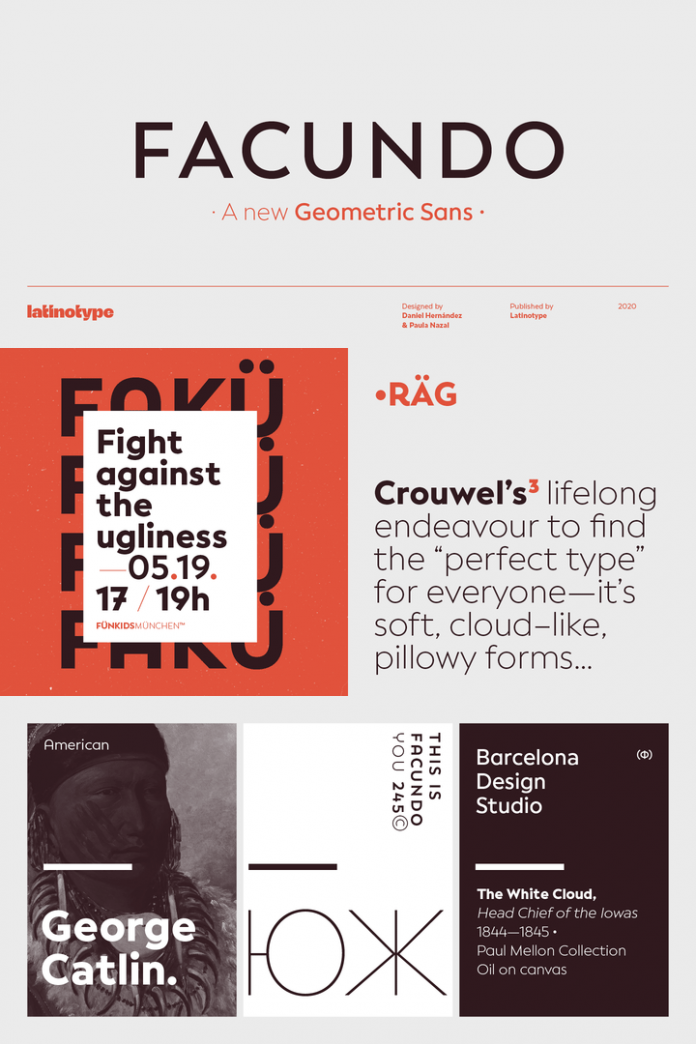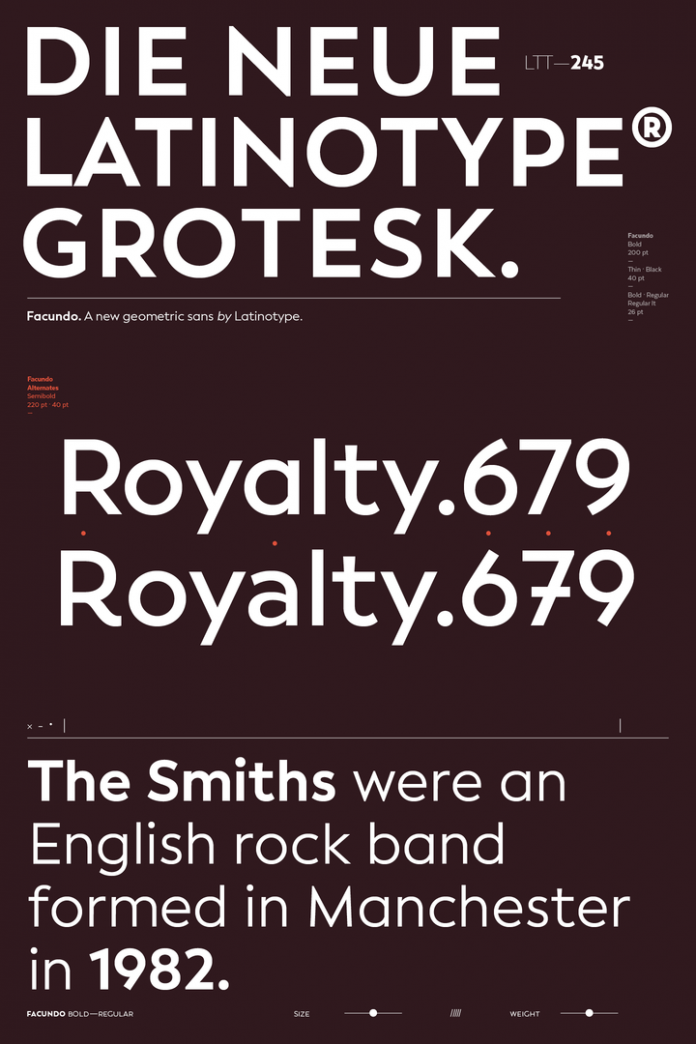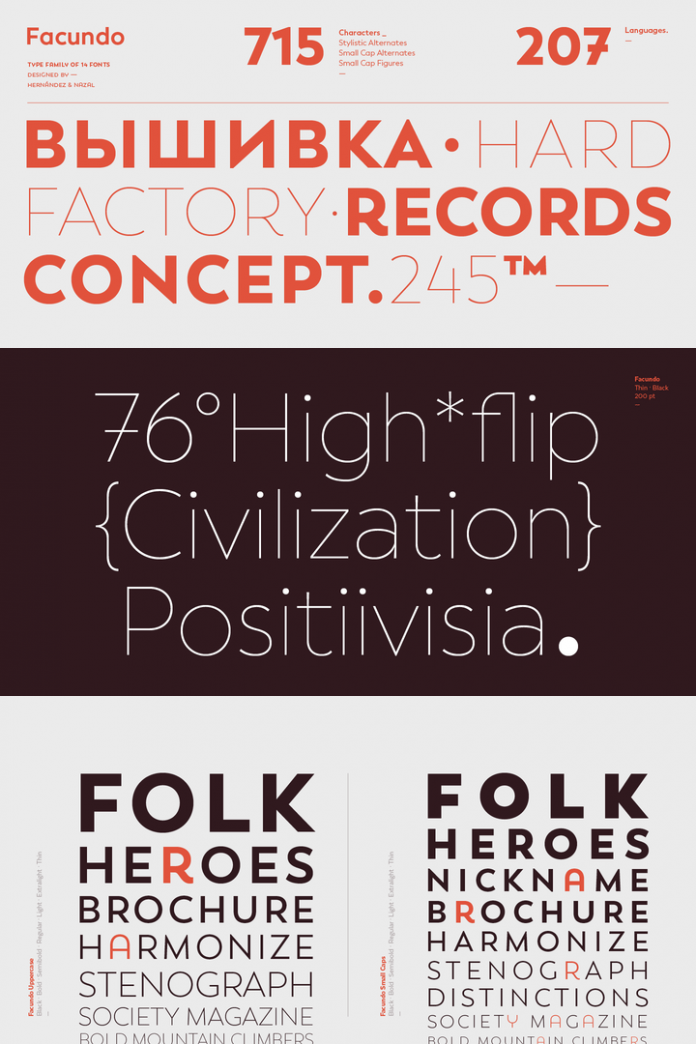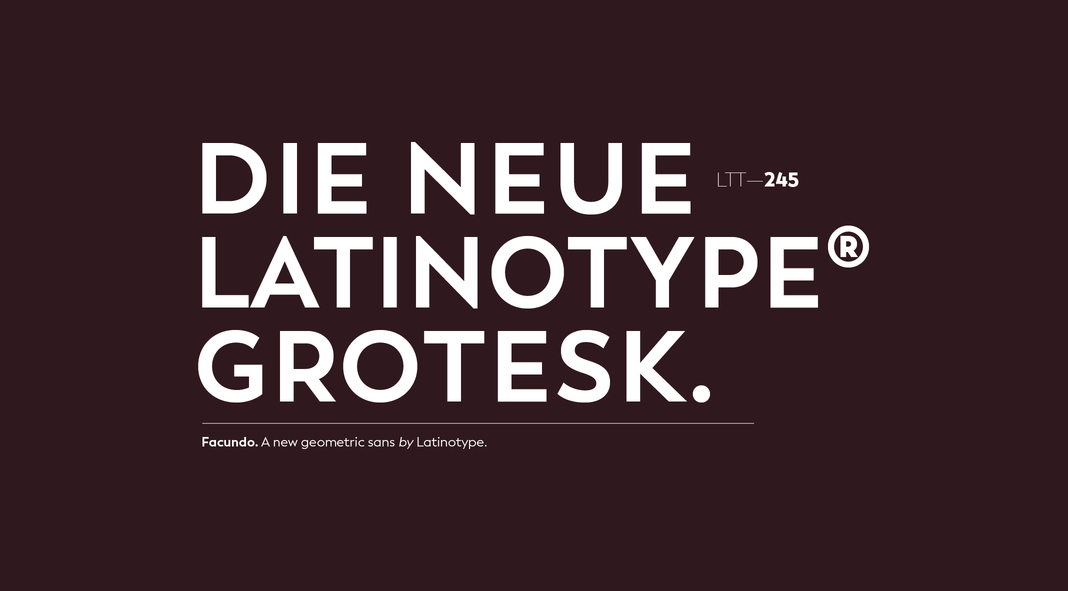
Facundo, a new grotesk font family from Latinotype.
Designed by Daniel Hernández and Paula Nazal Selaive for foundry Latinotype, Facundo offers simple geometric shapes, functionality, and excellent readability in every size. Its look may feel familiar but it comes with modern and fresh features. Using the Facundo font family, you can give your design a friendly yet professional appearance.
The Facundo font family is equipped with 7 weights plus matching Italics for each weight. It is well-suited for branding projects as well as any kind of print and web design. The extensive character set consists of 715 in order to support more than 200 languages including Cyrillic and Latin scripts. Please note, the complete font family is currently available as a heavily discounted introductory offer (only for a very limited time) on MyFonts. To learn more, just click on the following link.
Facundo font family by Latinotype.
A new grotesk font family from Latinotype.
Facundo font family by Latinotype.
The font family comes with plenty of typographic features and supports multiple languages.